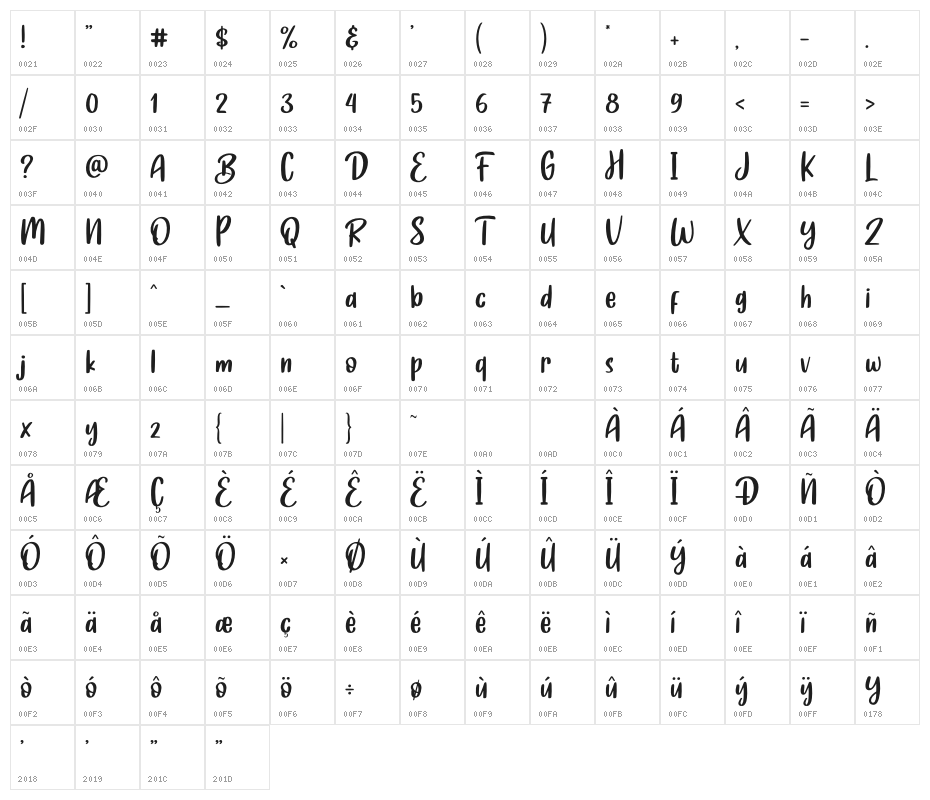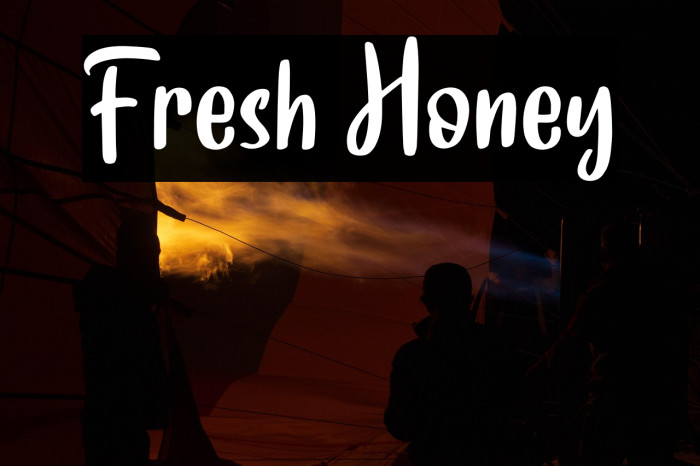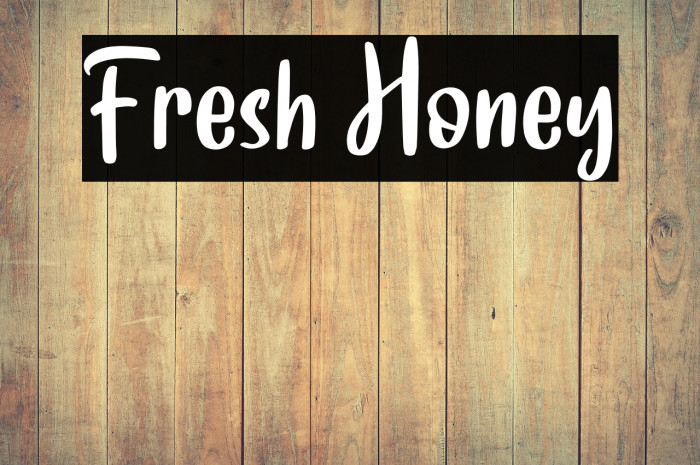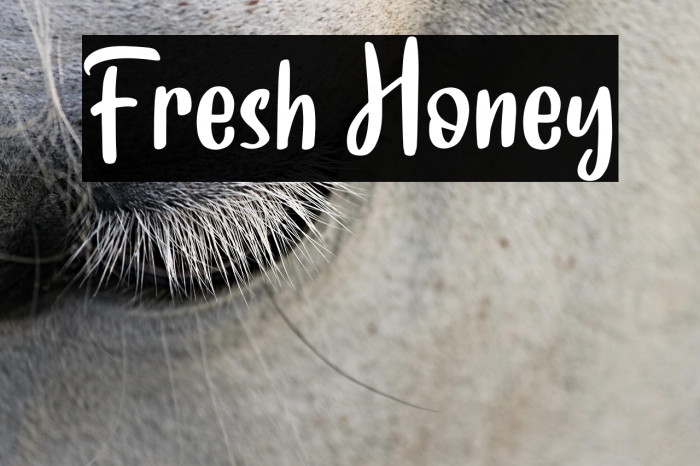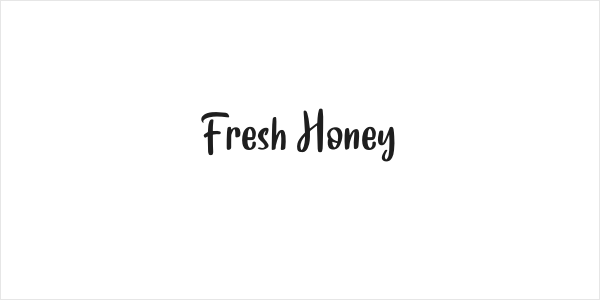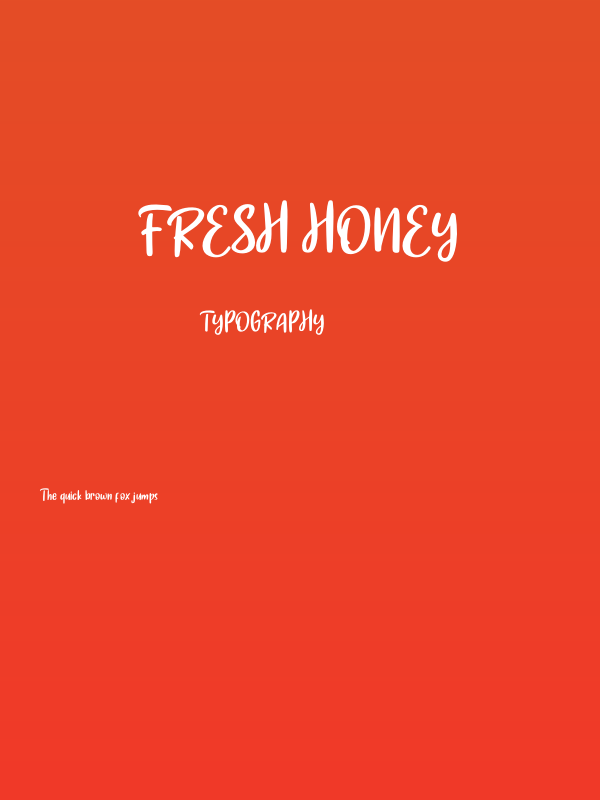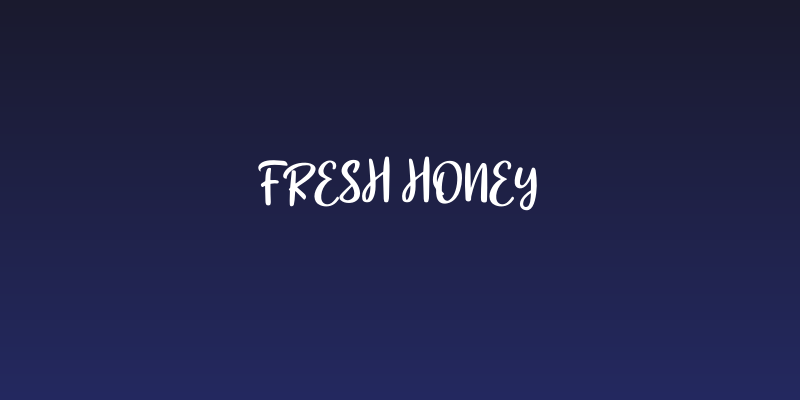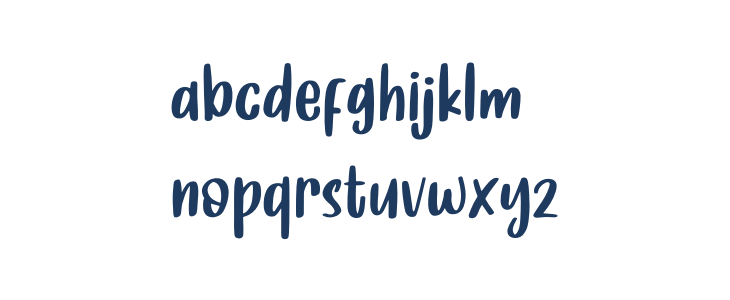
Fresh Honey Font
Fresh Honey Description
This font features a playful and casual handwritten style, characterized by its bold and smooth strokes. The letters are slightly slanted, giving it a dynamic and lively appearance. The uppercase letters are bold and rounded, while the lowercase letters maintain a consistent flow with a slightly more compact form. The numerals are clear and legible, matching the overall style of the alphabet. Special characters are well-integrated, maintaining the playful and informal aesthetic. This font is perfect for projects that require a personal touch, such as invitations, greeting cards, or branding for creative businesses.